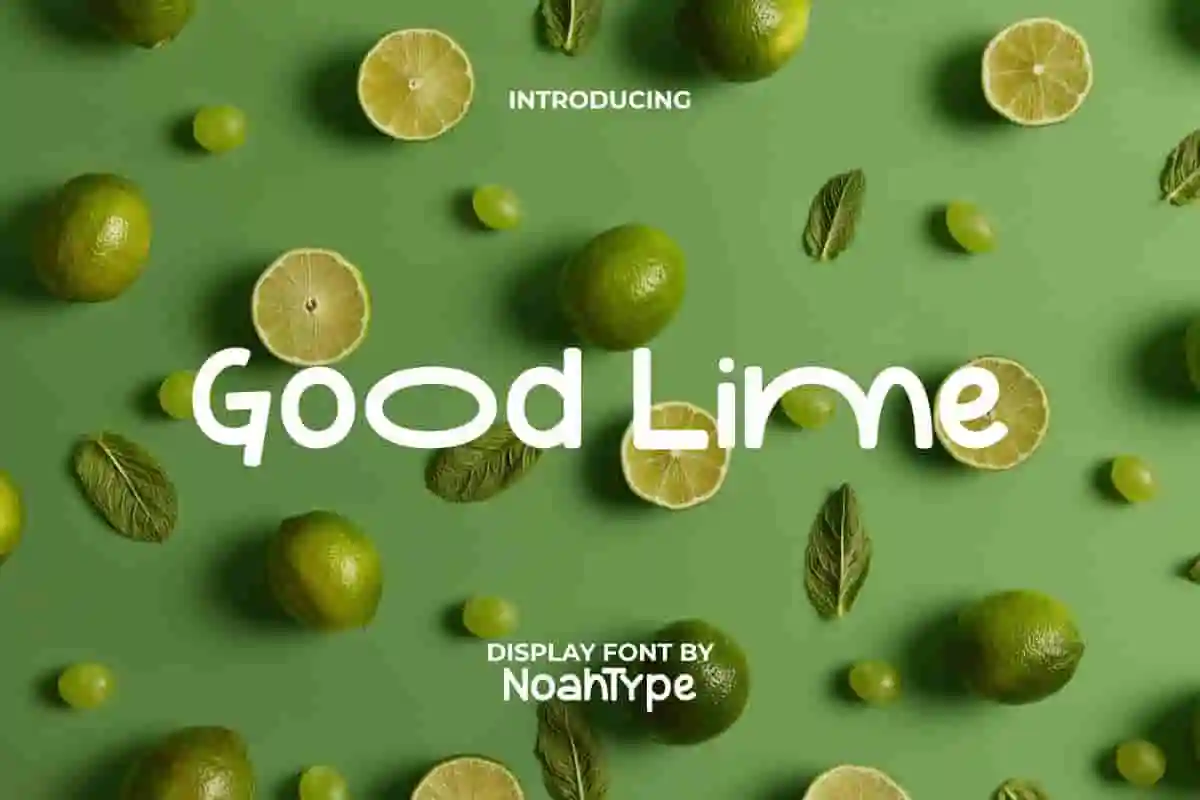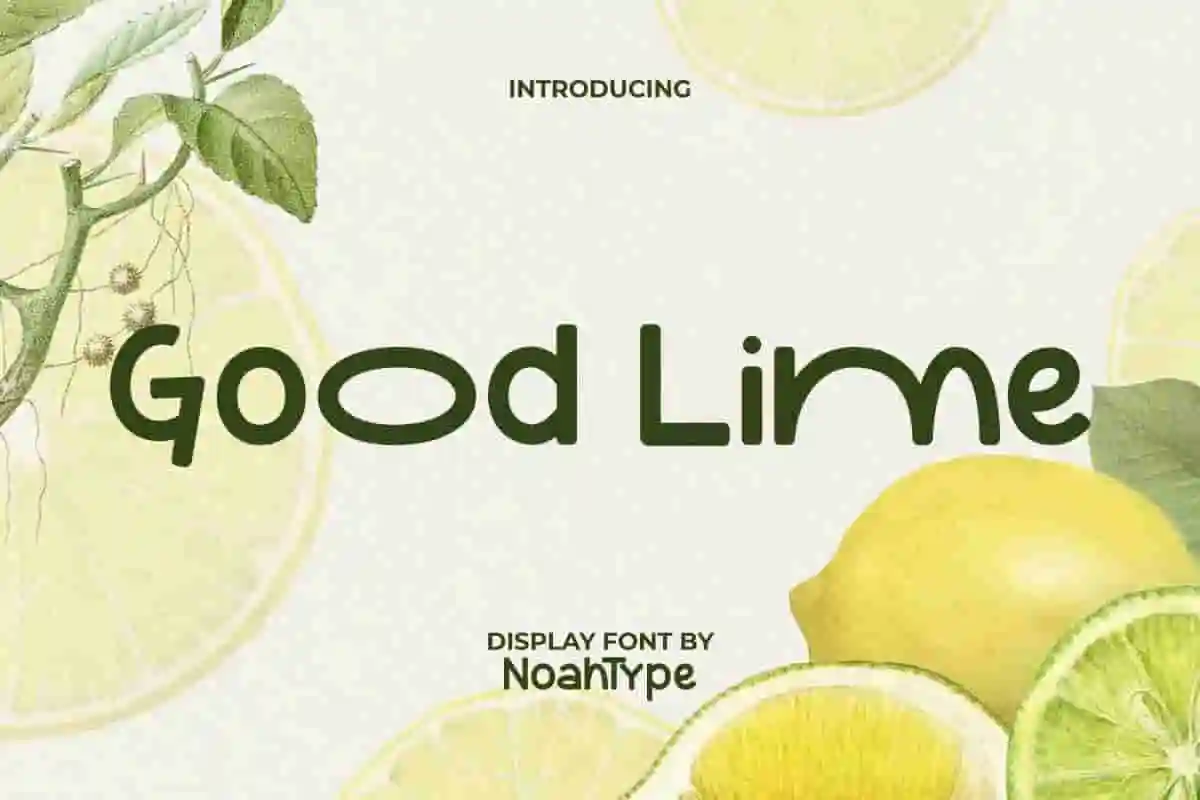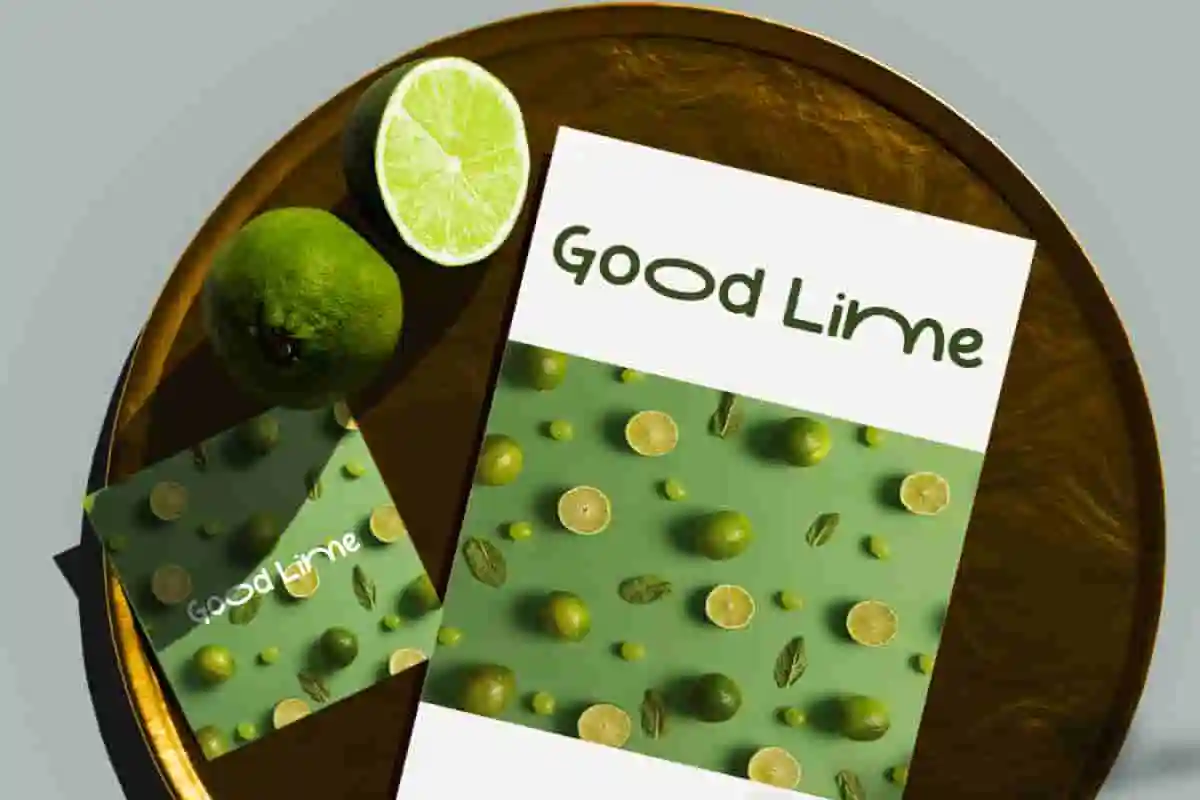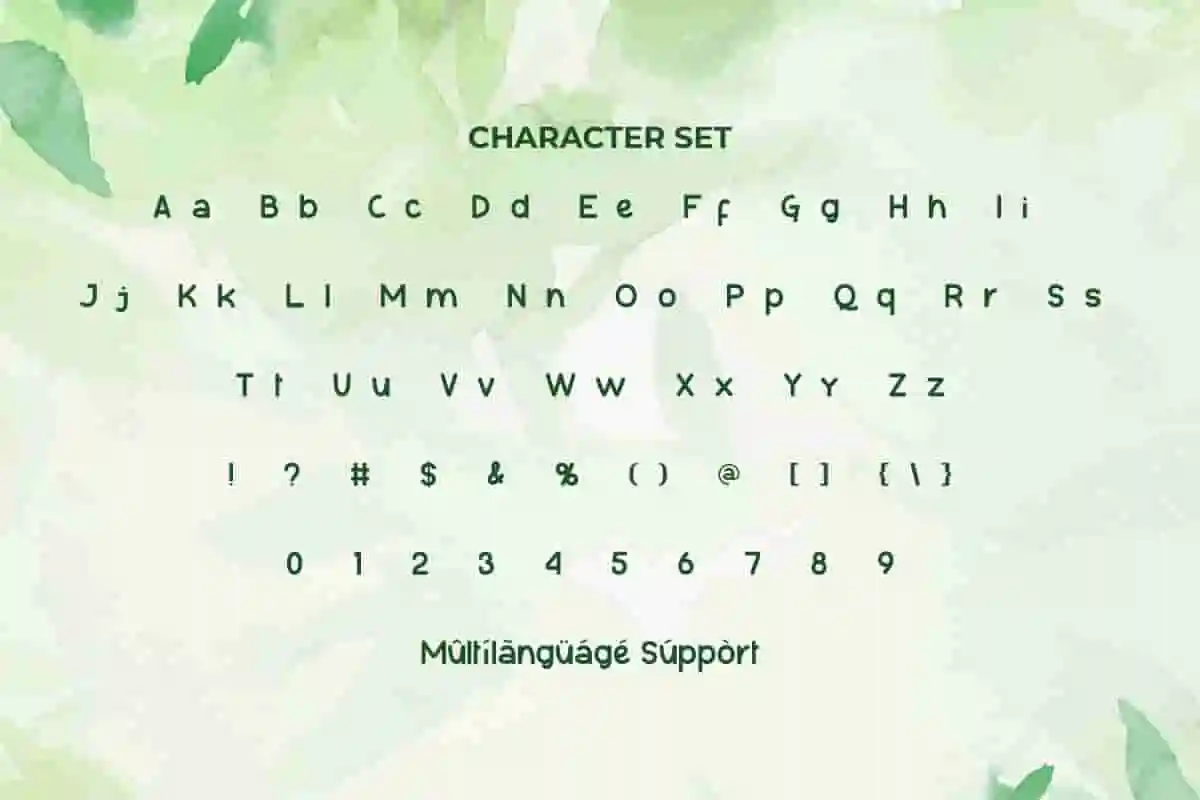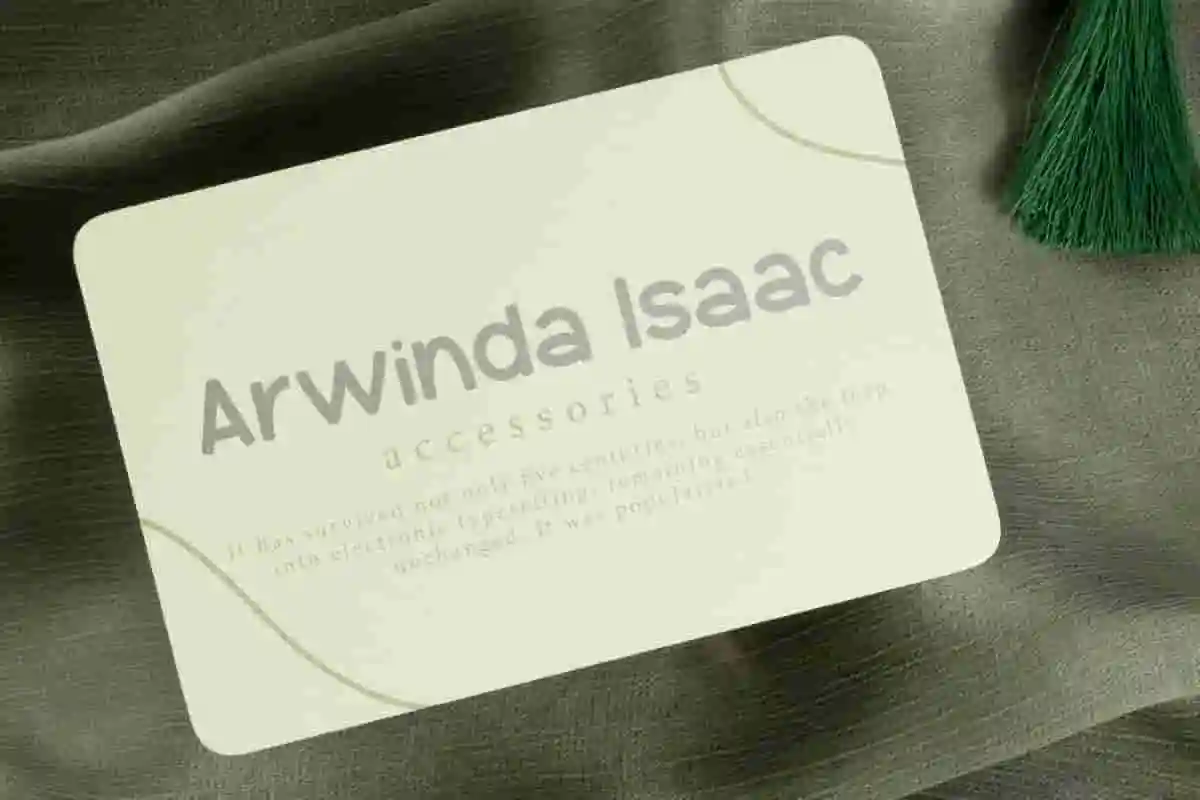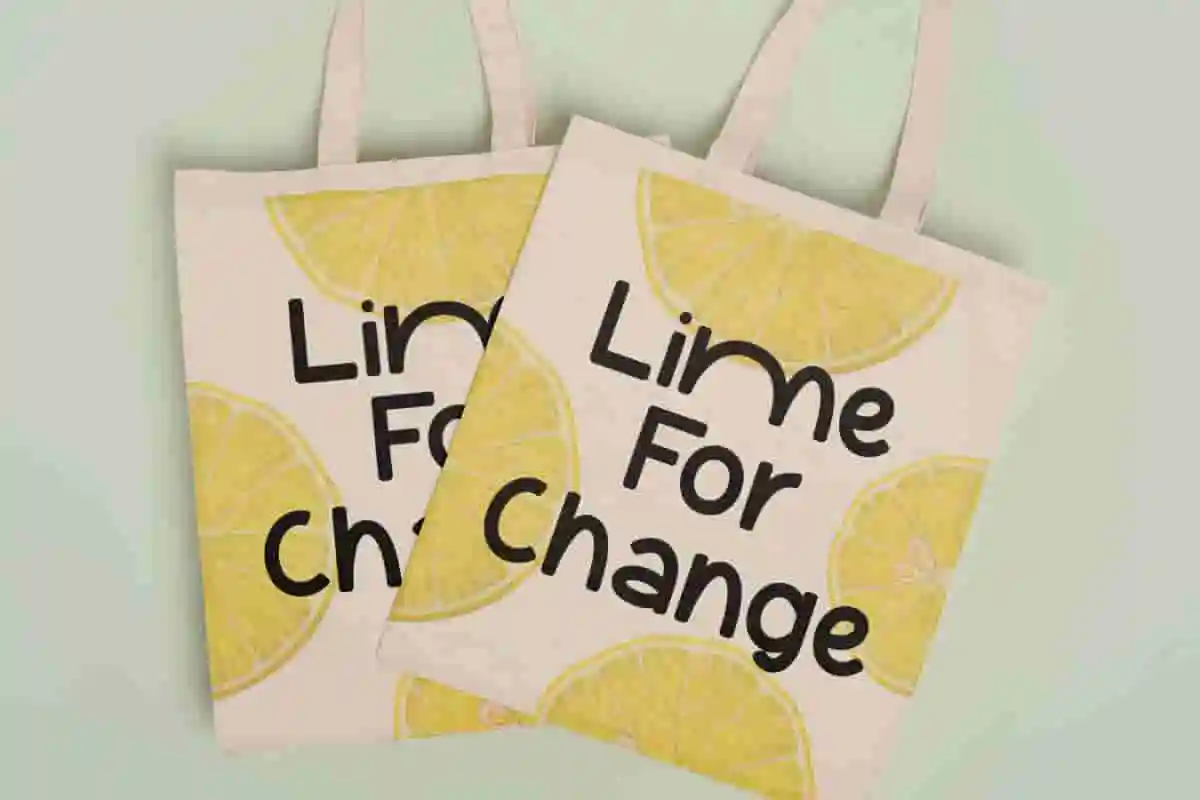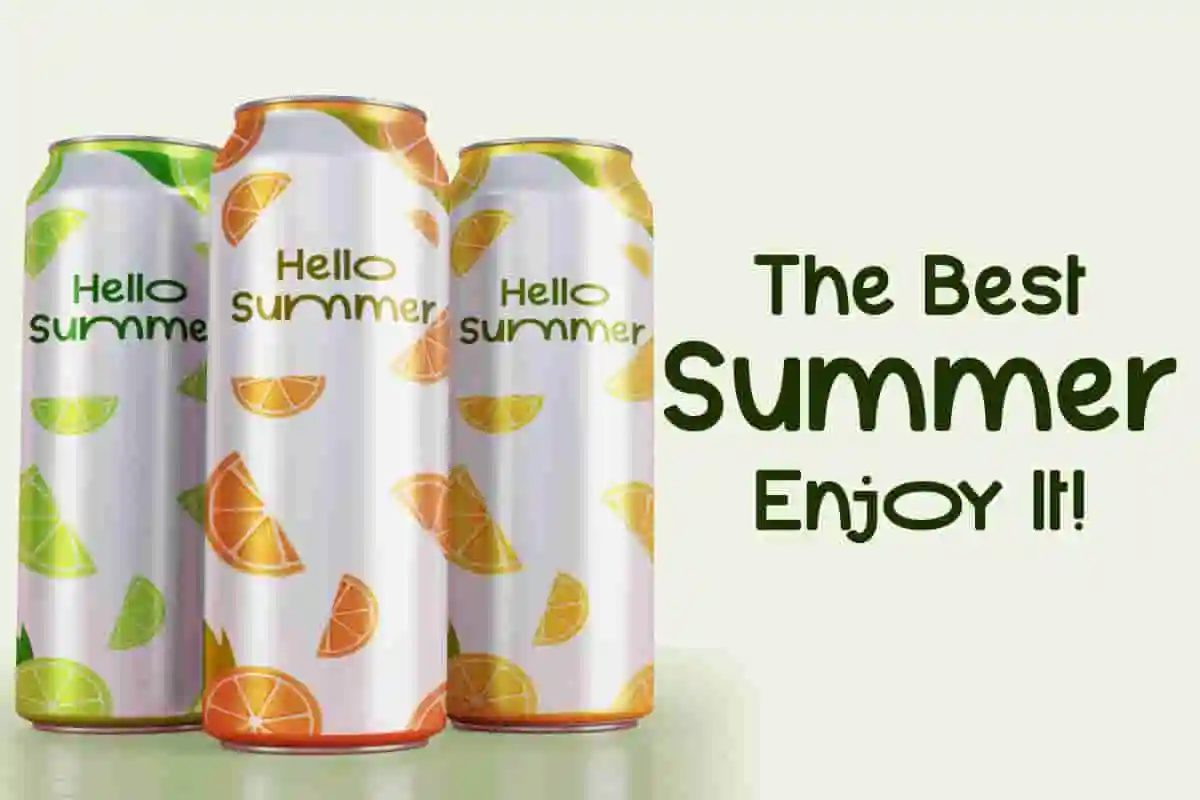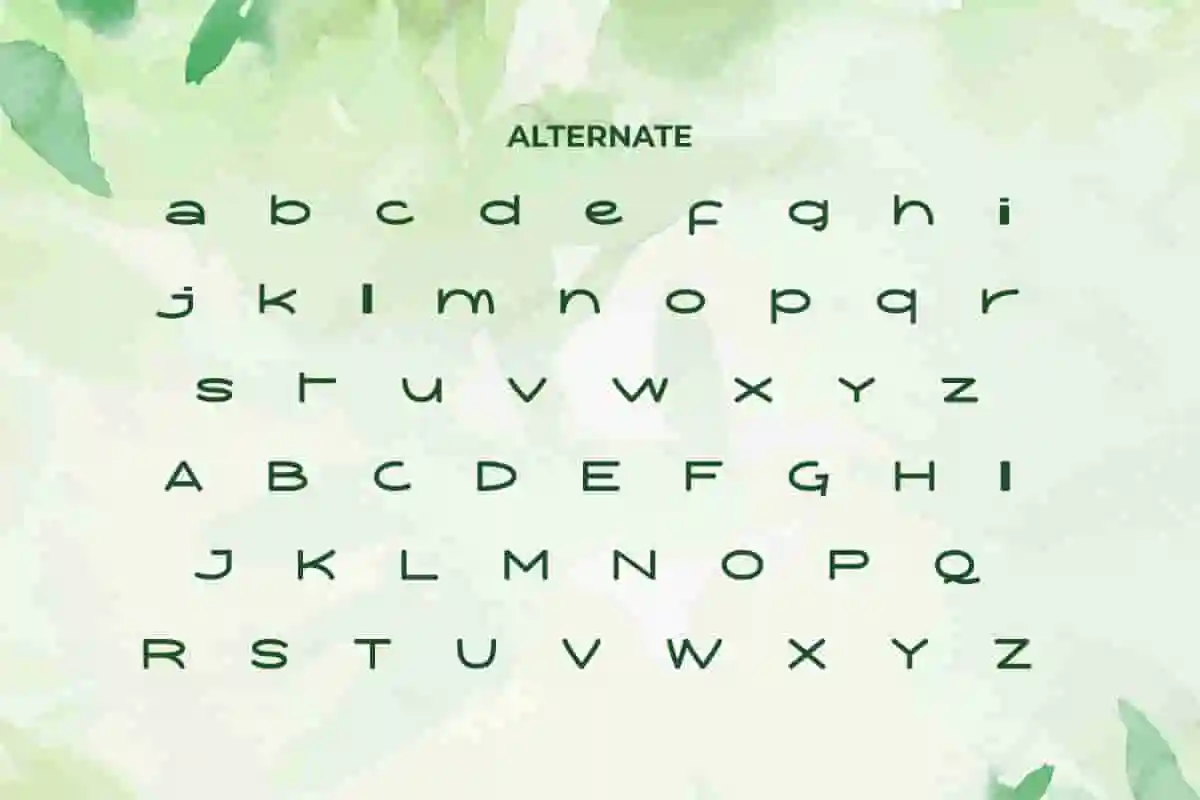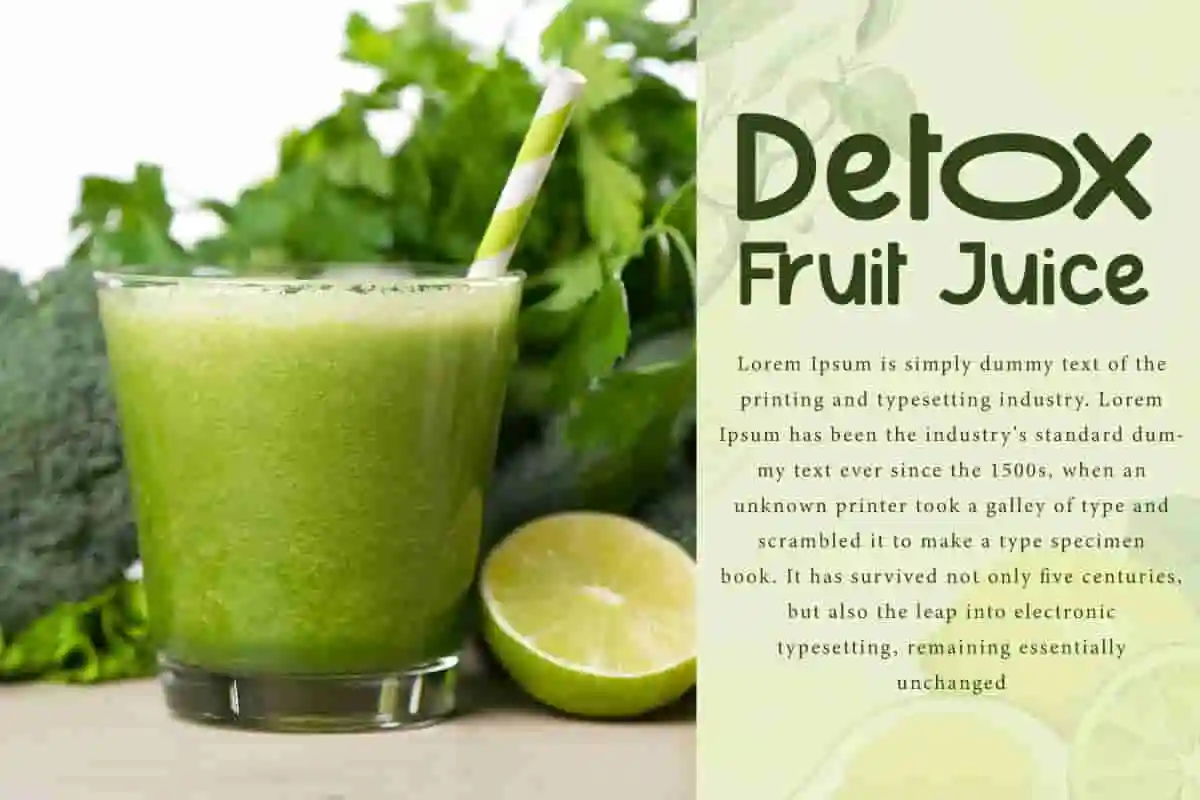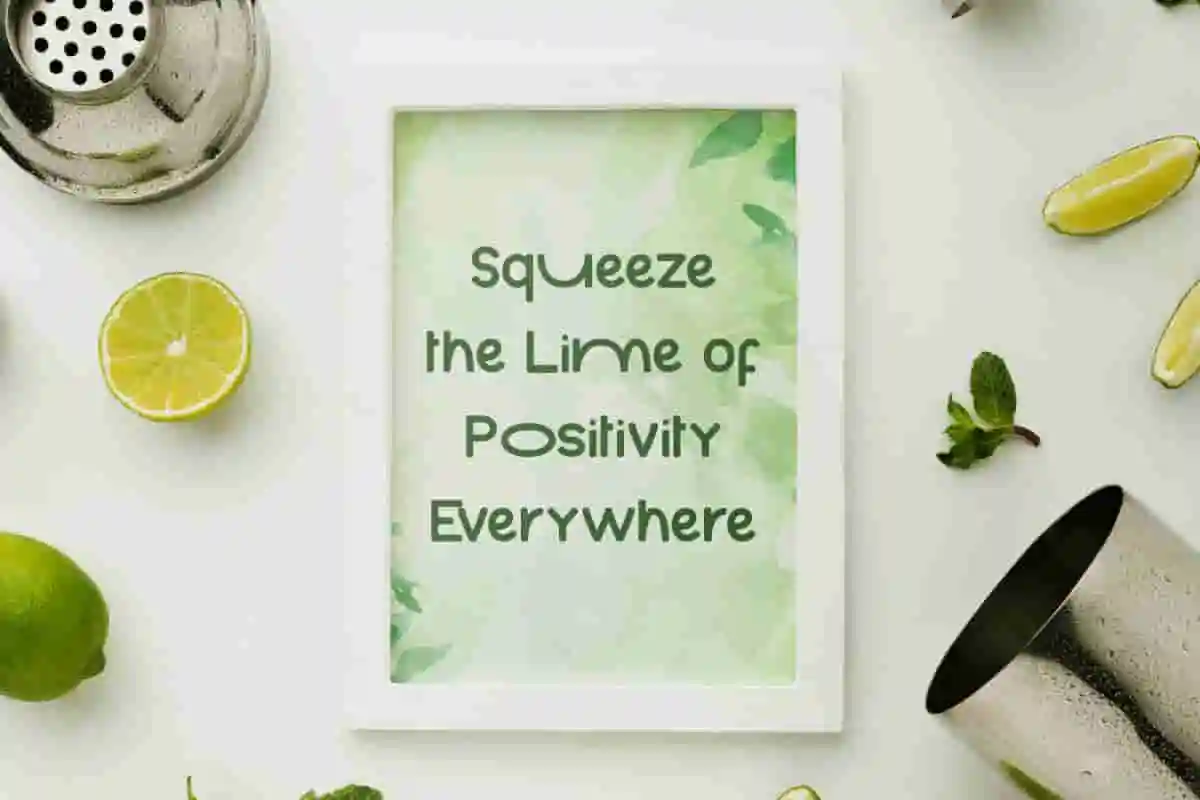
Good Lime Font is a fun and modern sans serif display font with a casual and readable look, but can still add uniqueness to any of your designs, such as brand image, business card, catalog, cover, custom design, label, poster, quote, web, and more!
Good Lime Font includes full set of Uppercase and Lowercase Basic Characters, Numerals and Punctuation. This font also contain Alternate characters that will give attractive appearance and perfect choice for many industries, such as advertisement, café, event organizer, fashion, food and beverage, printing, publishing, stuff, etc.